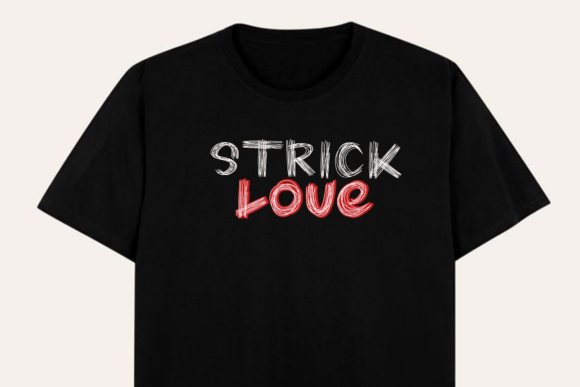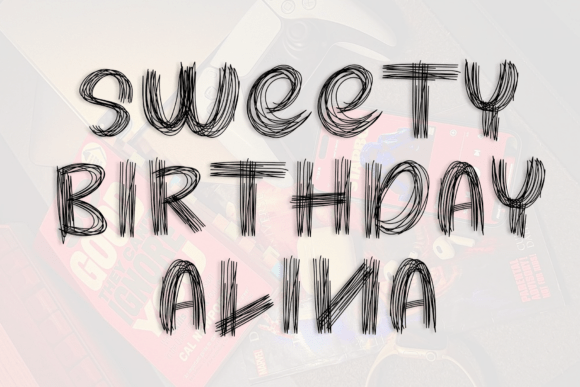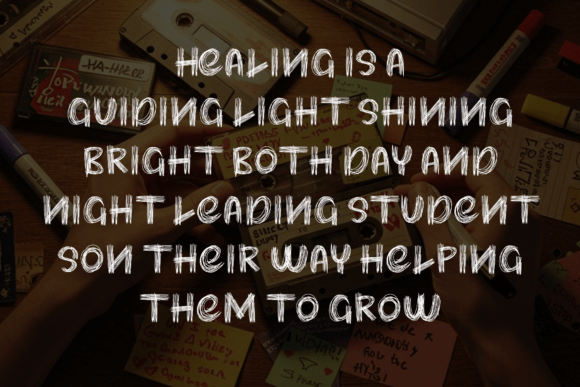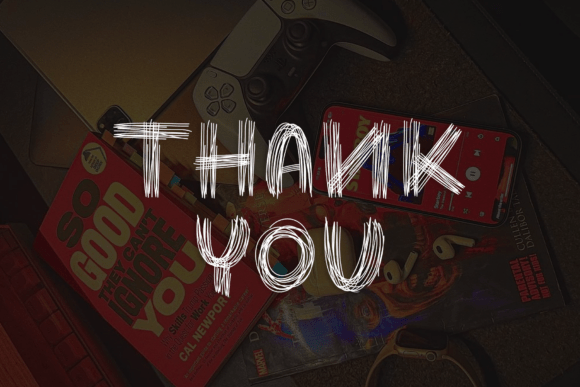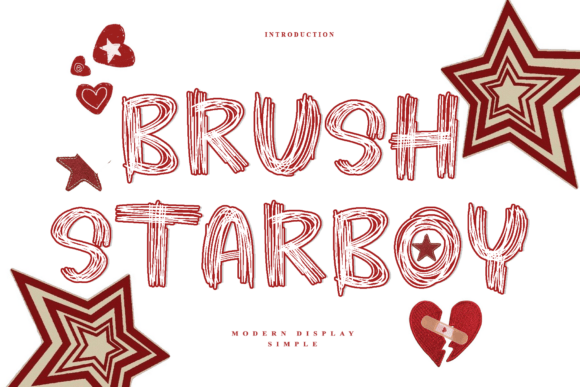
Introducing Brush Starboy Font: Unleash Your Creativity with a Raw and Energetic Display Font
Are you tired of using the same old fonts for your designs? Look no further than Brush Starboy Font, a unique and eye-catching display font that captures the essence of a hand-sketched or etched aesthetic. With its outlined, “scribble” texture and visible cross-hatching and irregular lines, Brush Starboy Font gives your designs a high-contrast and deeply artistic personality.
The Perfect Blend of Playfulness and Sophistication
Brush Starboy Font strikes the perfect balance between playfulness and sophistication. Its playful, slightly wobbly structure makes it feel informal and youthful, while its bold and expressive lines give it a sense of confidence and energy. This font is perfect for designers and crafters who want to add a touch of personality to their work.
Brush Starboy Font is an incredibly versatile font that can be used for a wide range of creative projects. Its raw and energetic vibe makes it an excellent choice for:
- DIY-style branding: Add a touch of handmade charm to your brand’s identity with Brush Starboy Font.
- Pop-art-inspired graphics: Create bold and eye-catching graphics that are reminiscent of the pop art movement.
- Creative social media posts: Stand out on social media with eye-catching posts that feature Brush Starboy Font.
- Youth-oriented apparel: Create bold and statement-making apparel that appeals to a young audience.
Key Features of Brush Starboy Font
So, what makes Brush Starboy Font so special? Here are some of its key features:
- Outlined, “scribble” texture with visible cross-hatching and irregular lines.
- High-contrast and deeply artistic personality.
- Playful, slightly wobbly structure.
- Bold and expressive lines.
- Perfect for DIY-style branding, pop-art-inspired graphics, creative social media posts, and youth-oriented apparel.
Why Choose Brush Starboy Font?
With so many fonts available, why choose Brush Starboy Font? Here are just a few reasons:
- Unique and eye-catching: Brush Starboy Font is a one-of-a-kind font that will make your designs stand out.
- Versatile: This font can be used for a wide range of creative projects.
- High-quality: This font is designed to high standards, ensuring that it looks great in any design.
Tips for Using Brush Starboy Font
Here are a few tips for getting the most out of Brush Starboy Font:
- Experiment with different colors: Brush Starboy Font looks great in a variety of colors, so don’t be afraid to experiment.
- Pair with other fonts: Brush Starboy Font pairs well with a range of other fonts, so try combining it with other fonts to create a unique look.
- Use for headlines: Brush Starboy Font is perfect for headlines and titles, where its bold and expressive lines can really make an impact.
Brush Starboy Font is a unique and eye-catching display font that is perfect for designers and crafters who want to add a touch of personality to their work. With its outlined, “scribble” texture and visible cross-hatching and irregular lines, this font gives designs a high-contrast and deeply artistic personality. Whether you’re working on DIY-style branding, pop-art-inspired graphics, creative social media posts, or youth-oriented apparel, Brush Starboy Font is an excellent choice.